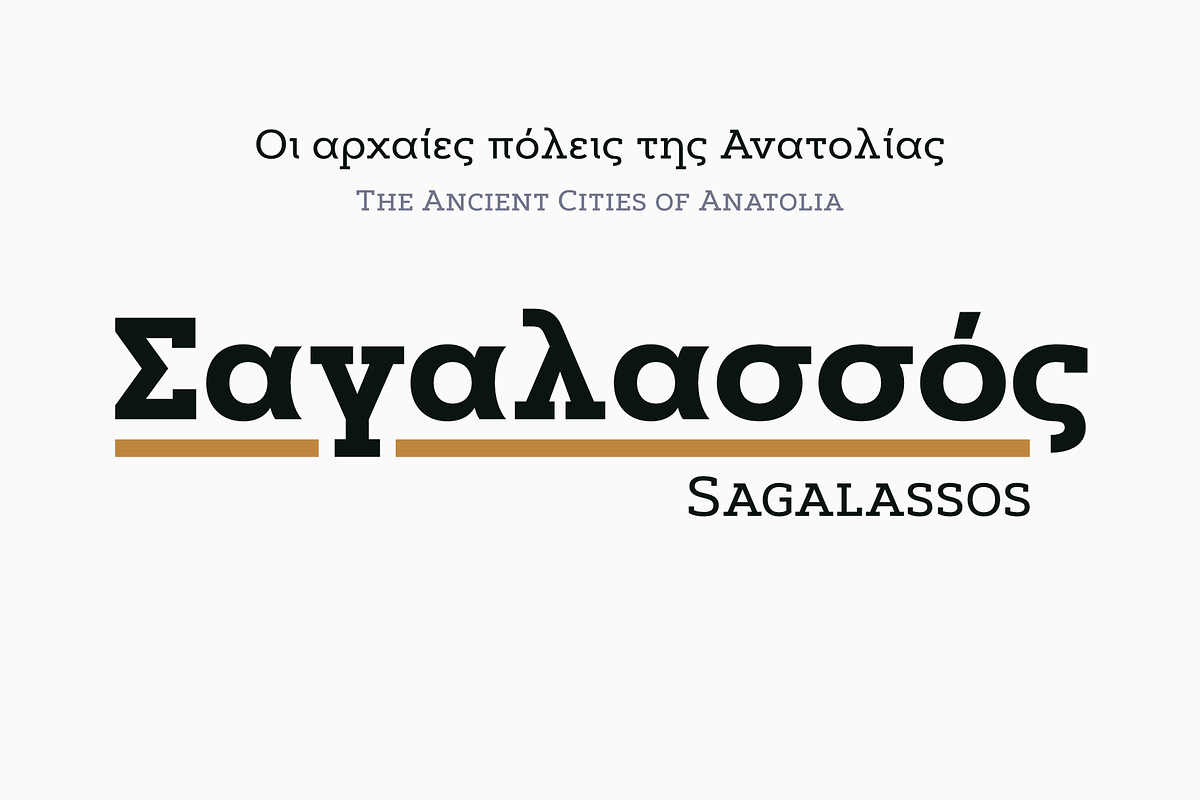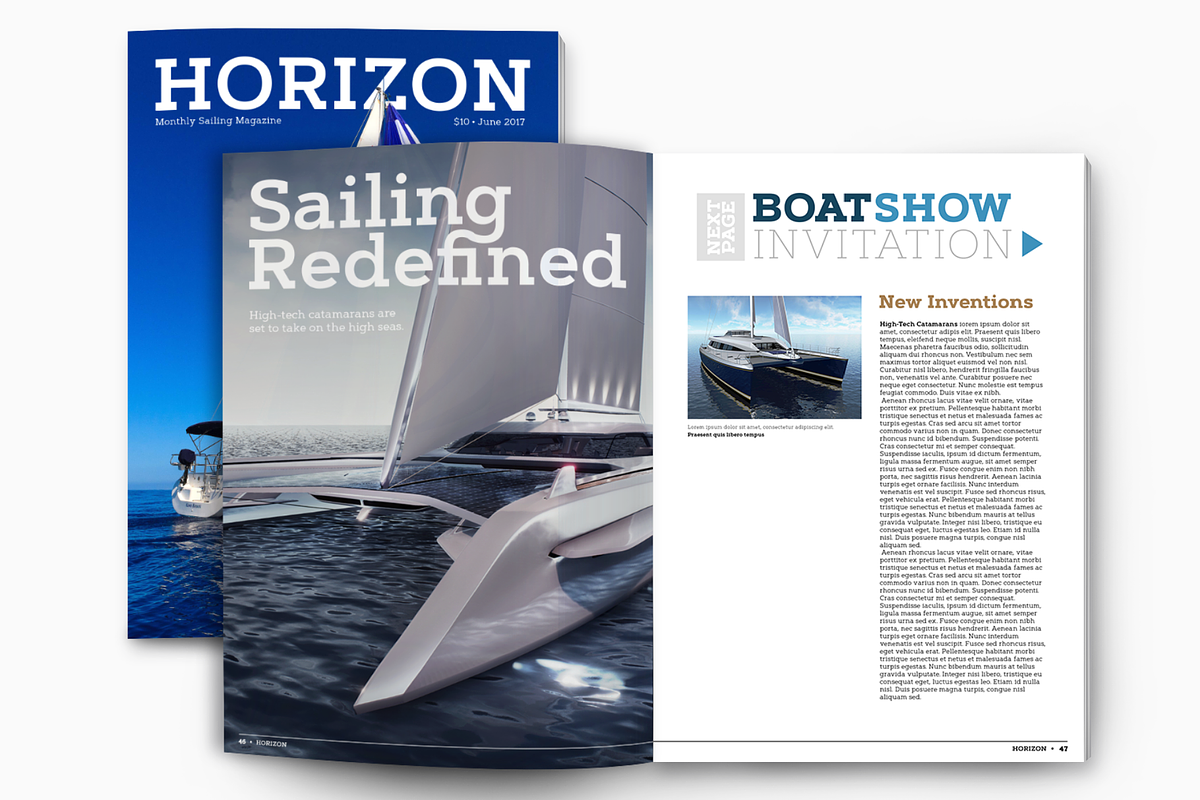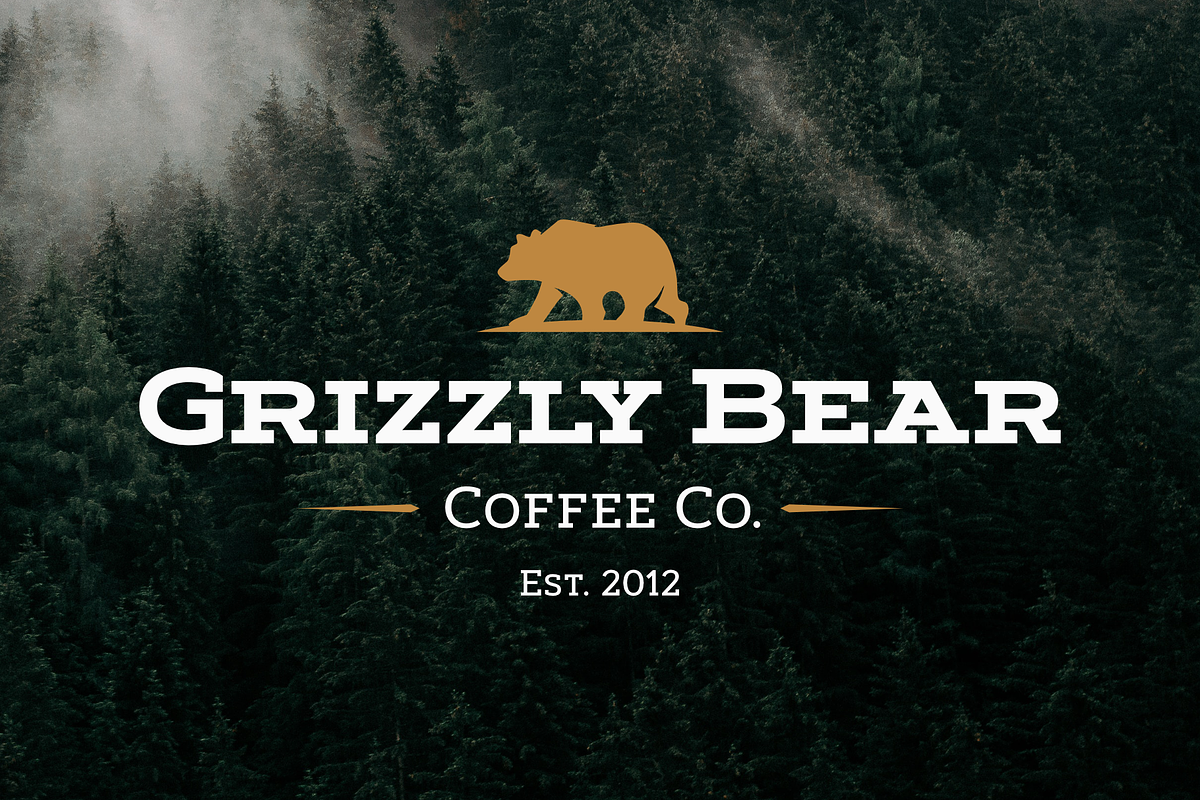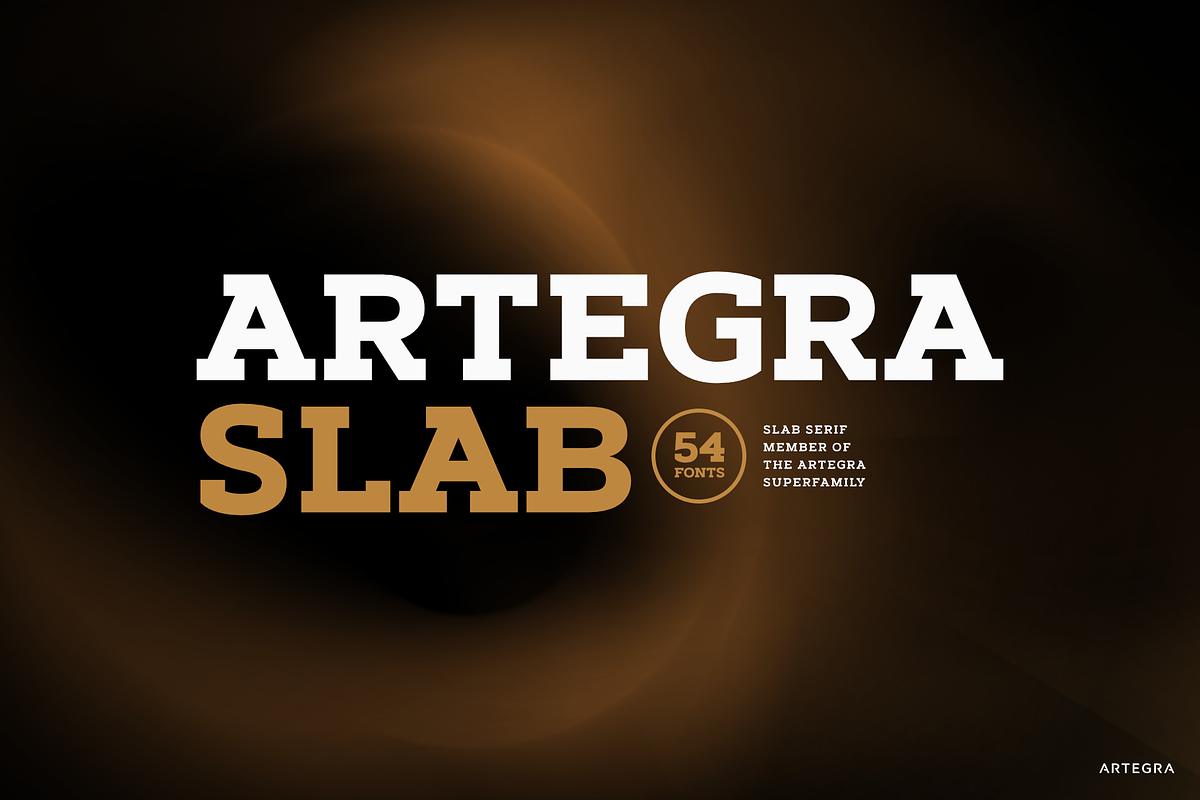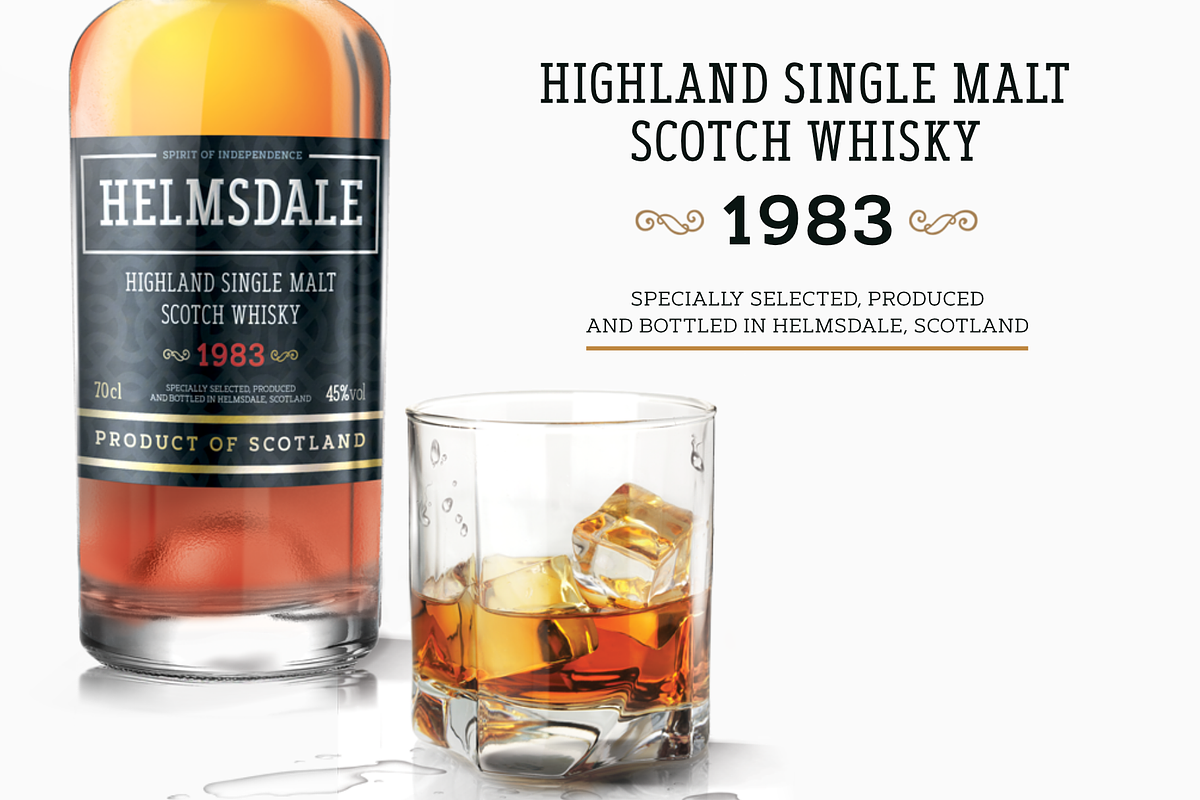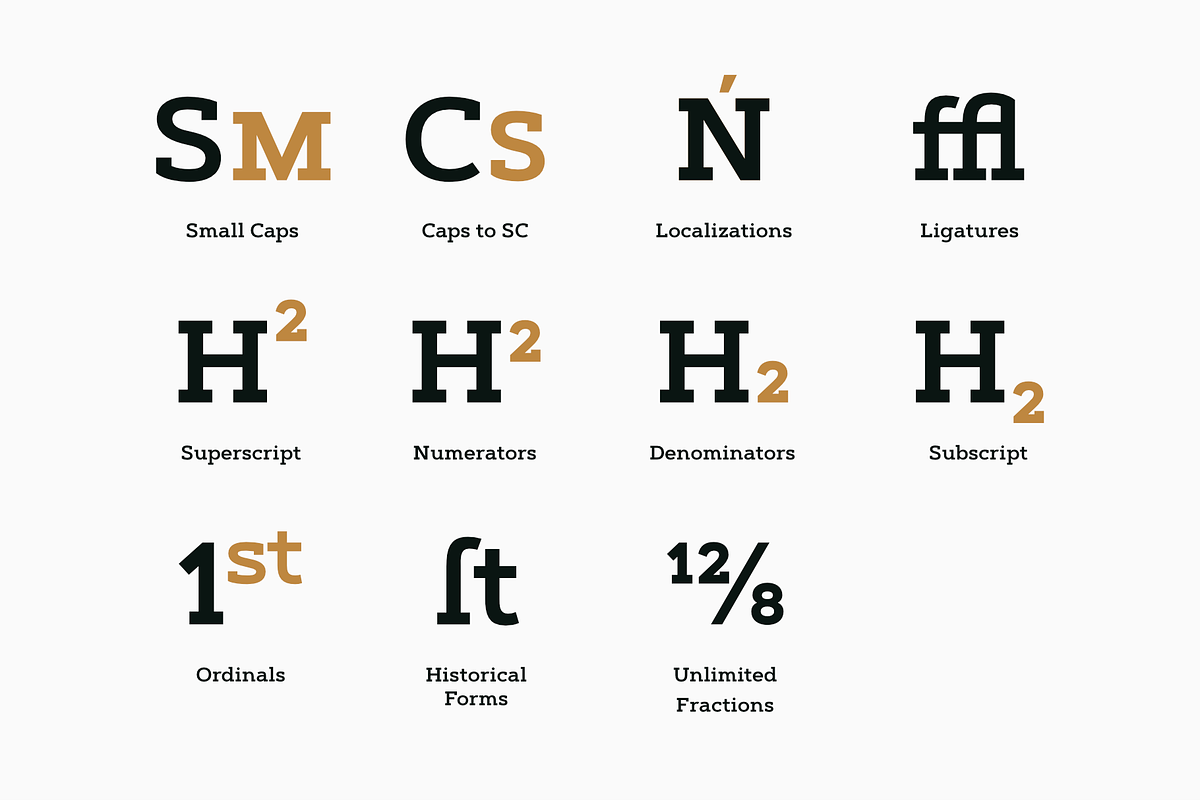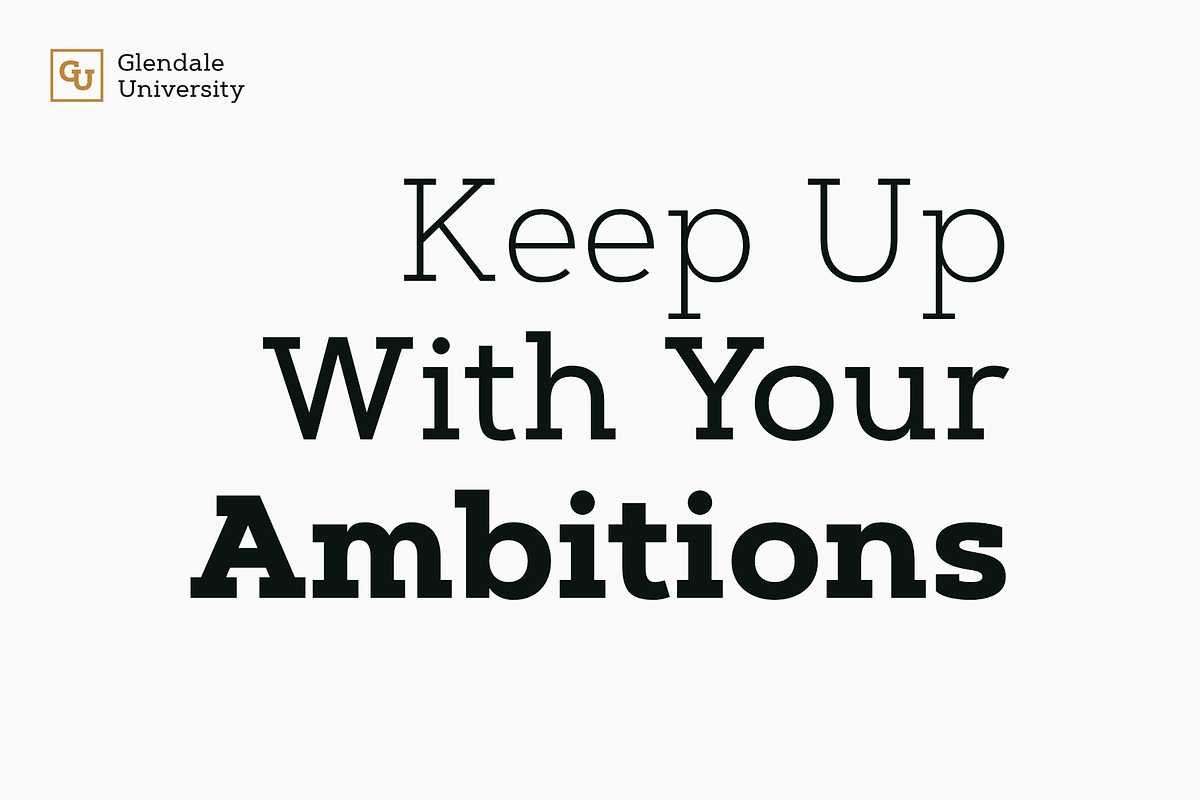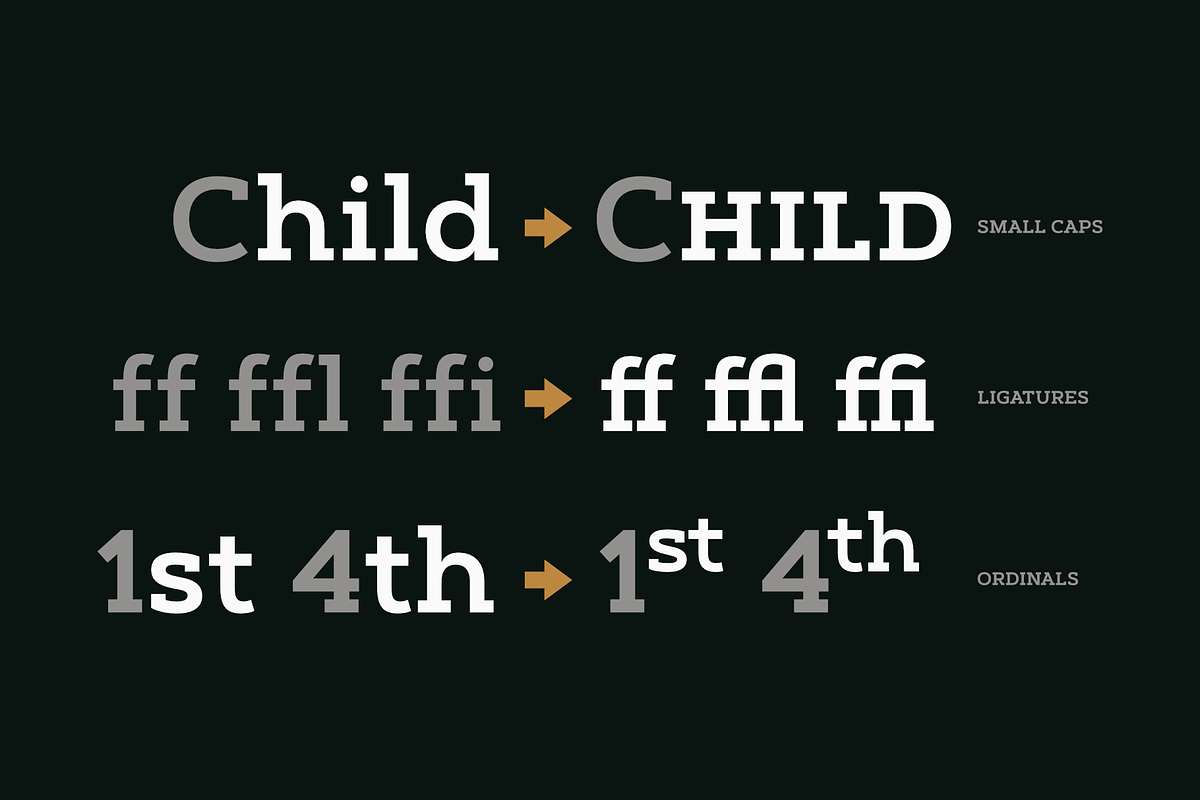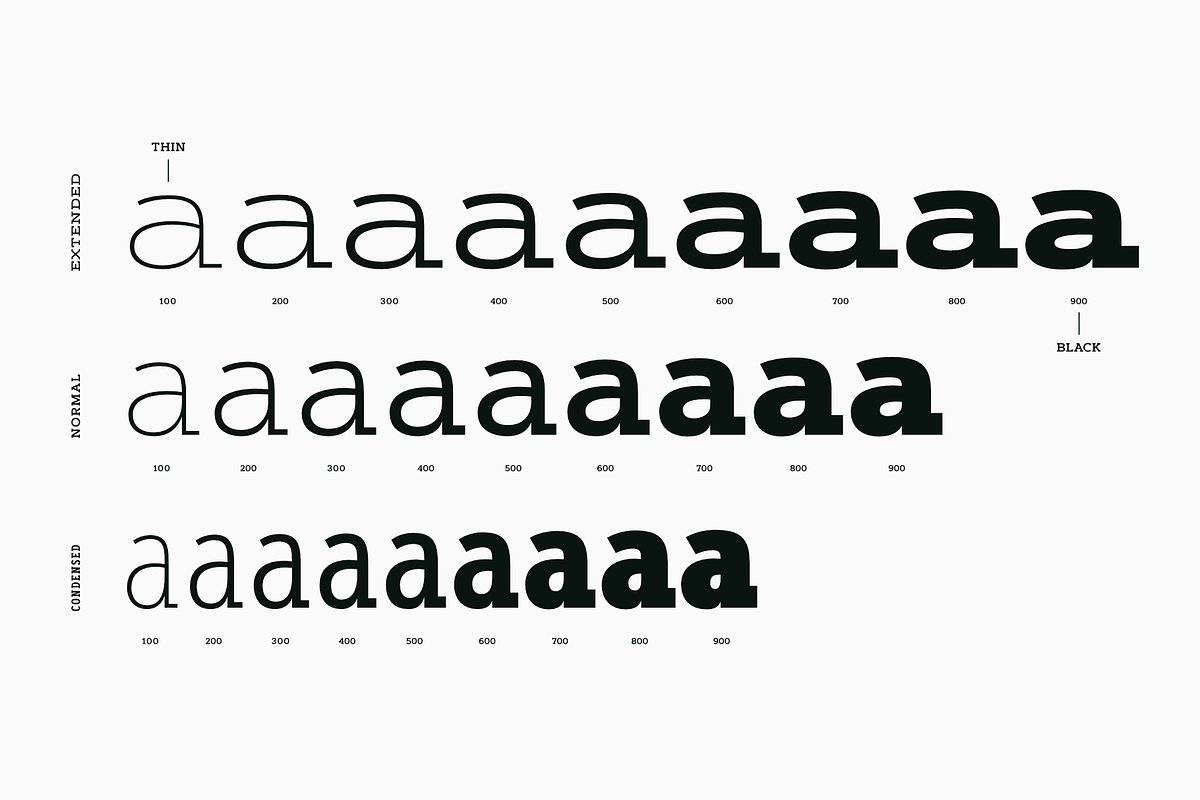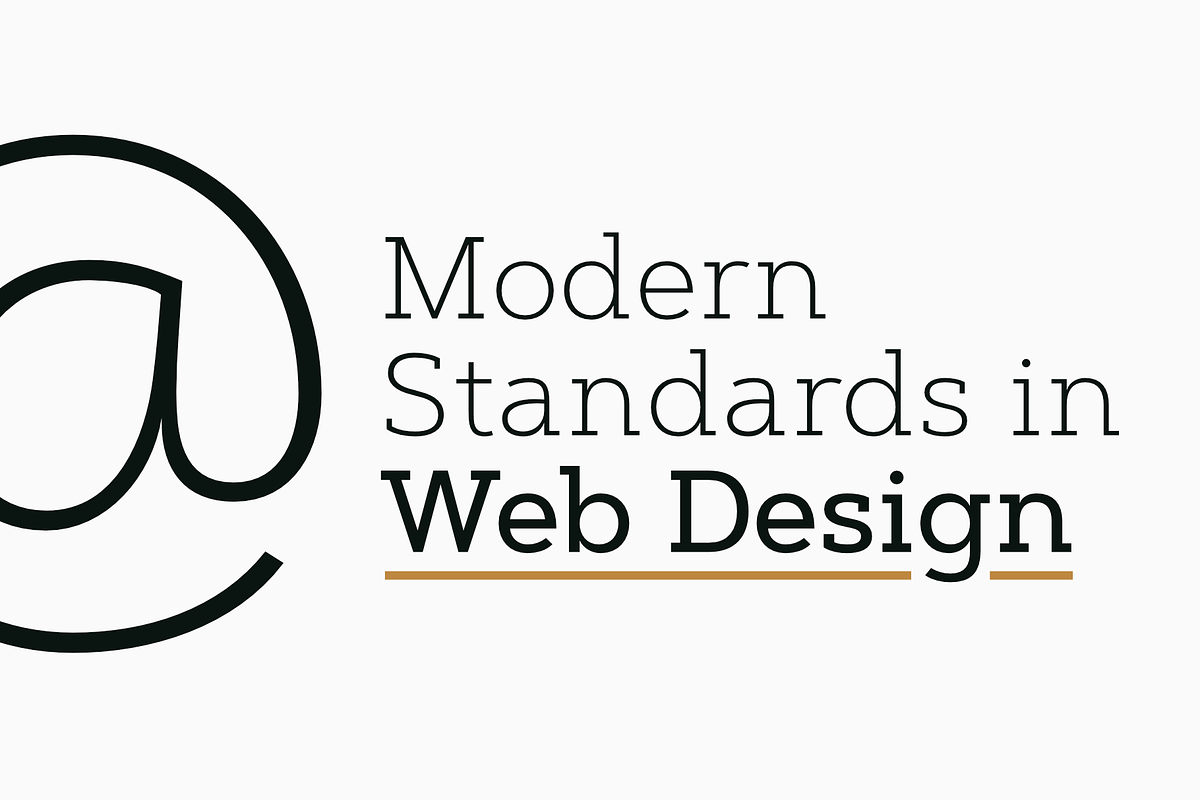
Artegra Slab
Artegra Slab is the latest addition to the Artegra superfamily. It contains 54 fonts with over 1000 glyphs per font in condensed, normal and extended widths. With Cyrillic and Greek sets it supports more than a hundred languages. It’s based on the perfectionist geometric shapes of Artegra Sans, which makes it beautiful to look at and easy to read.
Opentype features: Small Caps, Ligatures, Unlimited Fractions, Ordinals, Superscripts & Subscripts, Language Localizations for Turkish, Dutch, Polish, Romanian, Moldovan and so on.